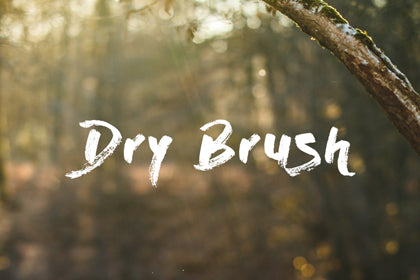
Free Dry Brush Font
Today we're glad to feature this free dry brush font. Free Design Resources has created this amazing and beautiful free font. Easily amaze your audience with this cool font and make your graphic designs pop up from the crowd.